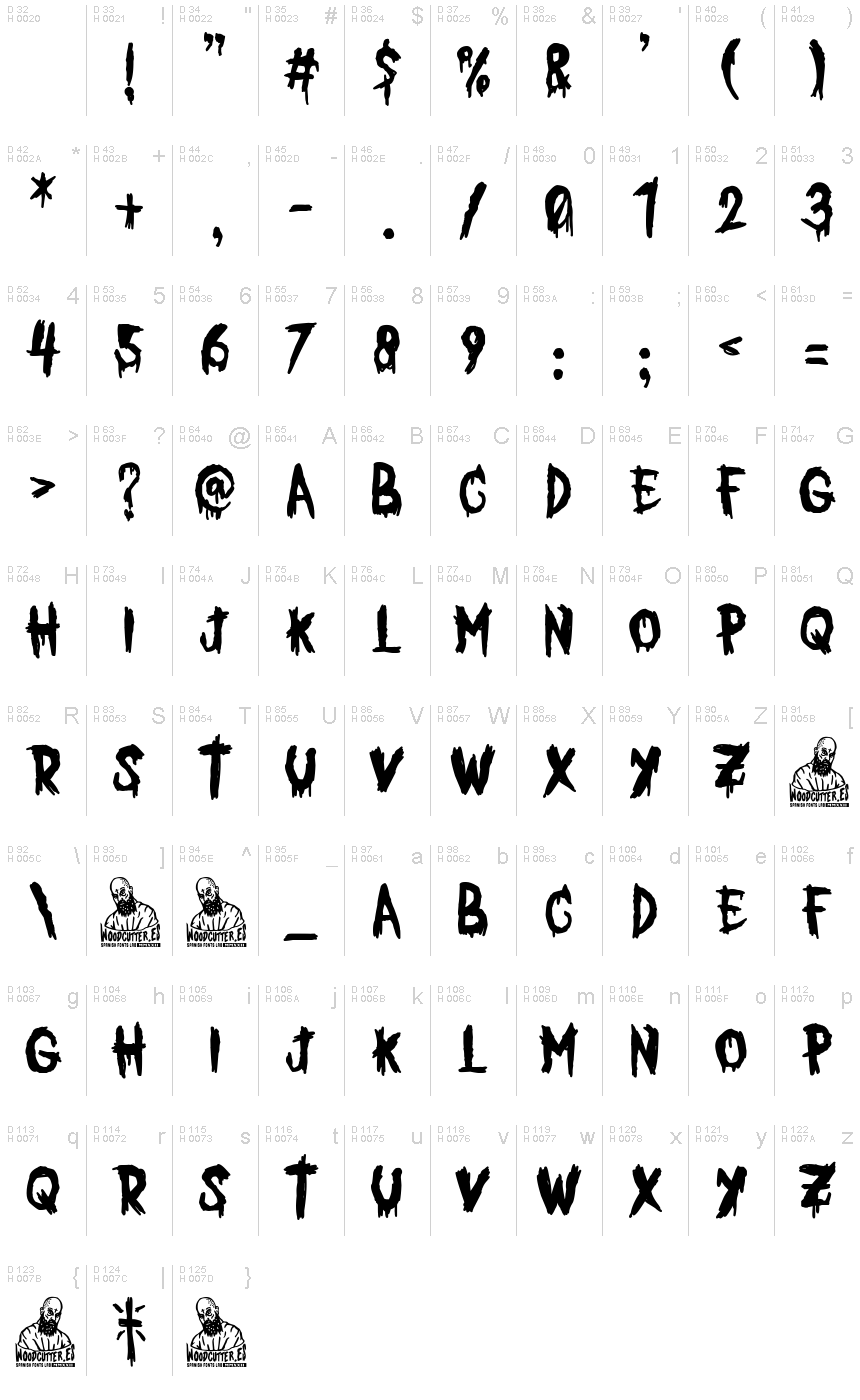
Dead City Club
Dead City Club is a bold and captivating display font that exudes an undeniable sense of grit and danger. Designed by Woodcutter, this typeface commands attention with its razor-sharp edges and ominous, angular forms. The letters seem to have been etched into the page, conveying a raw, primal energy that is both unsettling and alluring.
This font is perfect for projects that require a strong, attention-grabbing aesthetic - think movie posters, album covers, or any design where you want to make a bold, unapologetic statement. Its assertive, slightly unhinged appearance lends itself well to horror-themed branding, punk rock aesthetics, or any creative endeavor that seeks to push the boundaries of conventional type design.
Whether used as a headline, logotype, or accent, Dead City Club will undoubtedly leave a lasting impression, inviting the viewer to explore the darker, more visceral realms of visual expression.